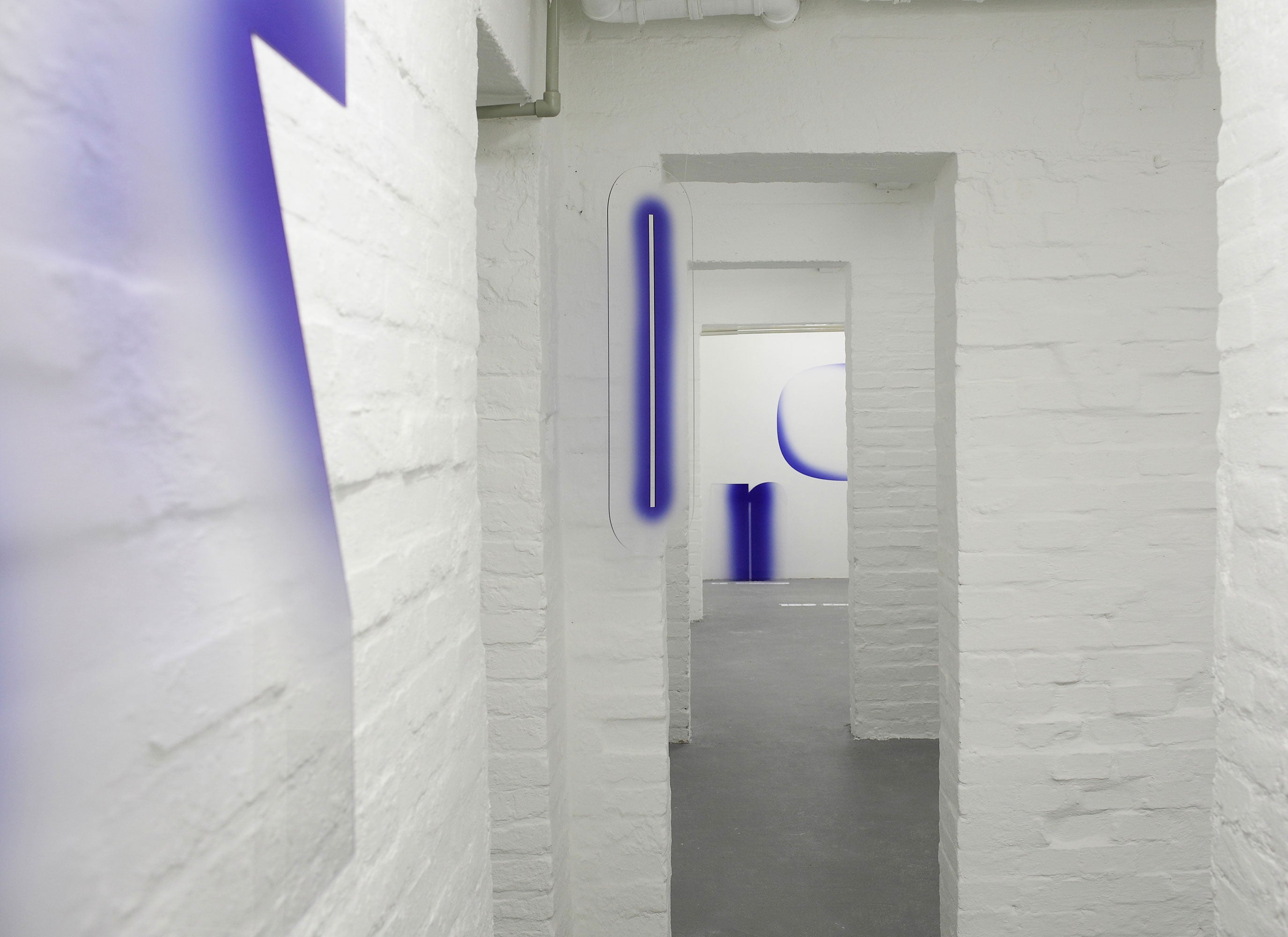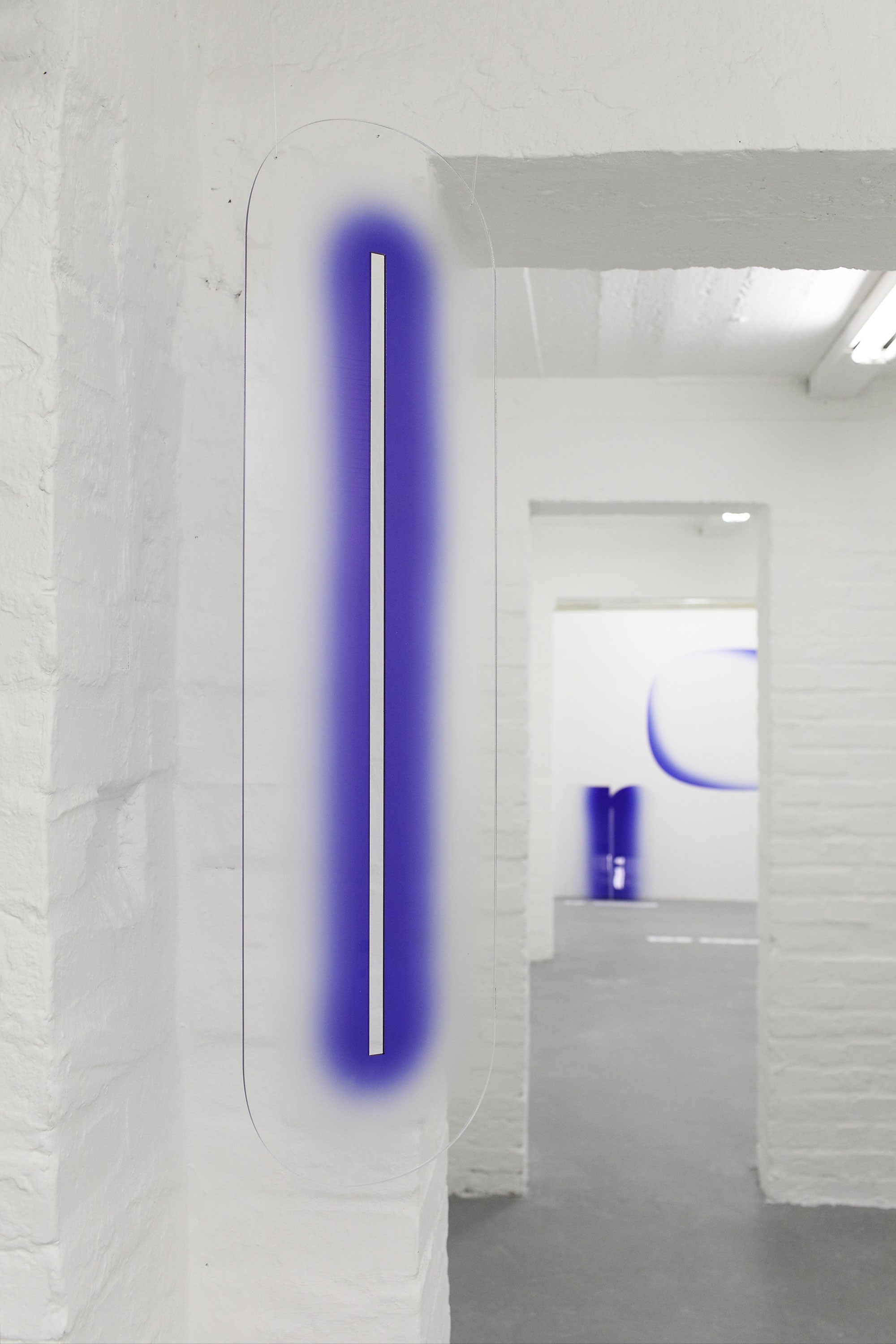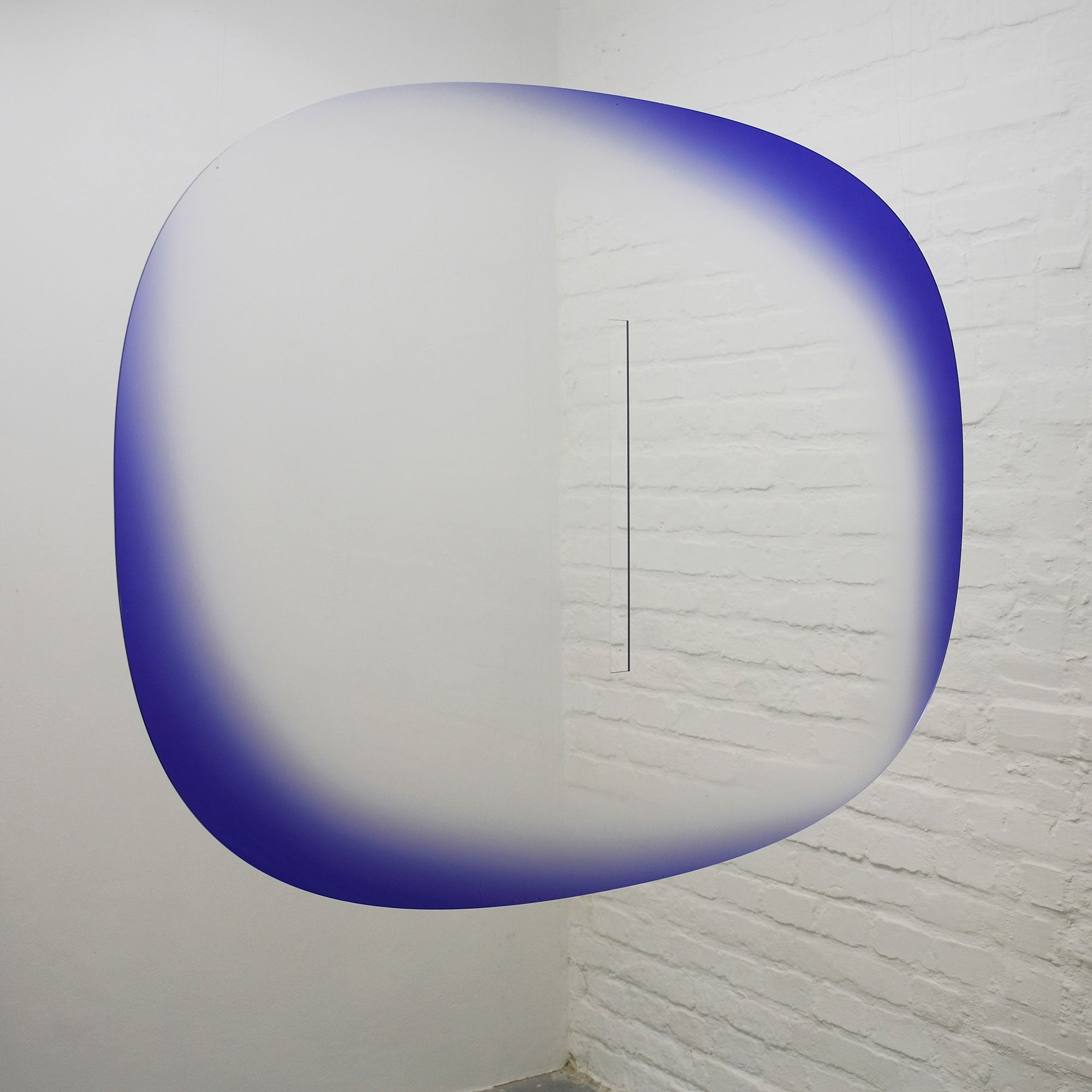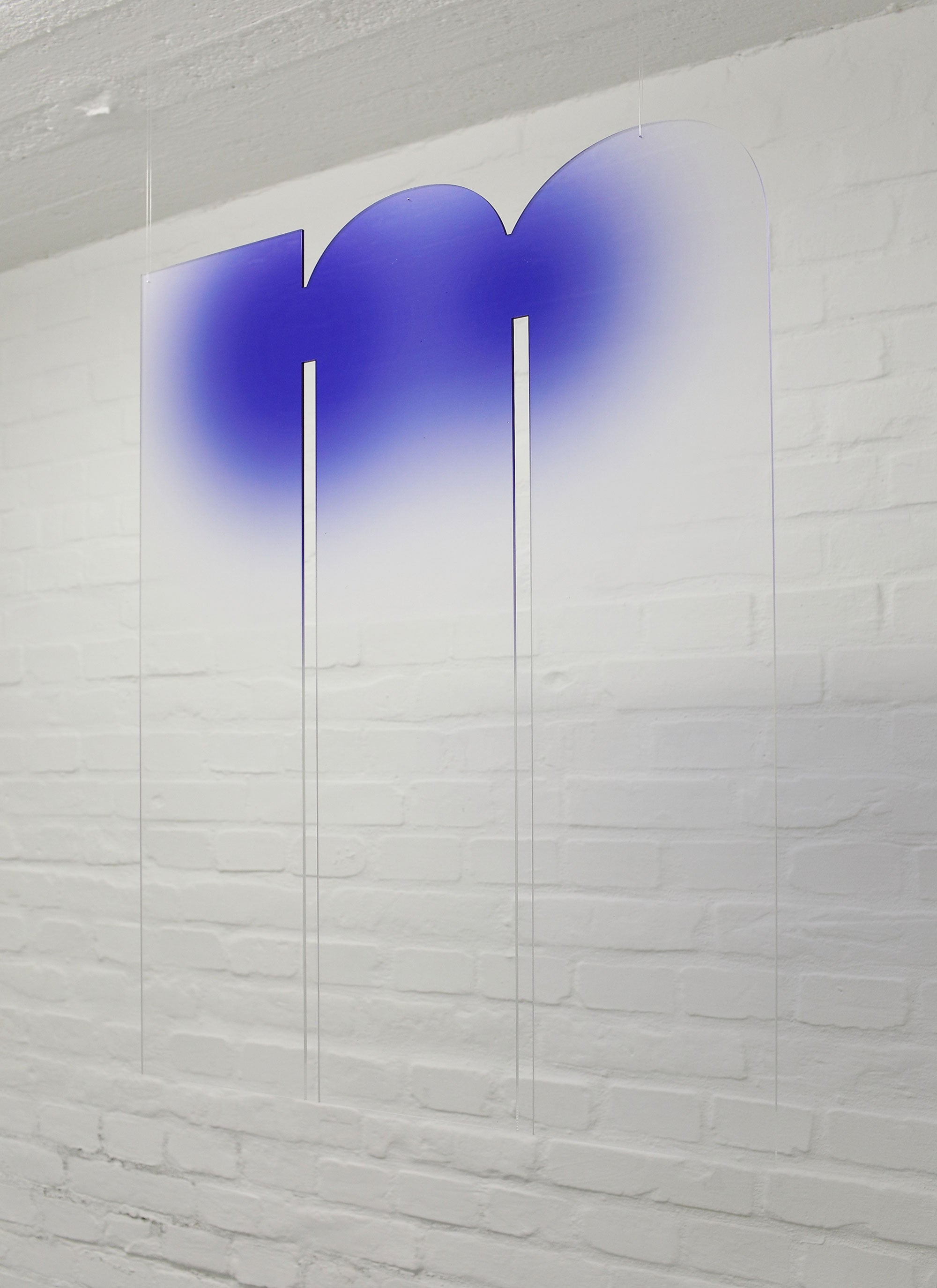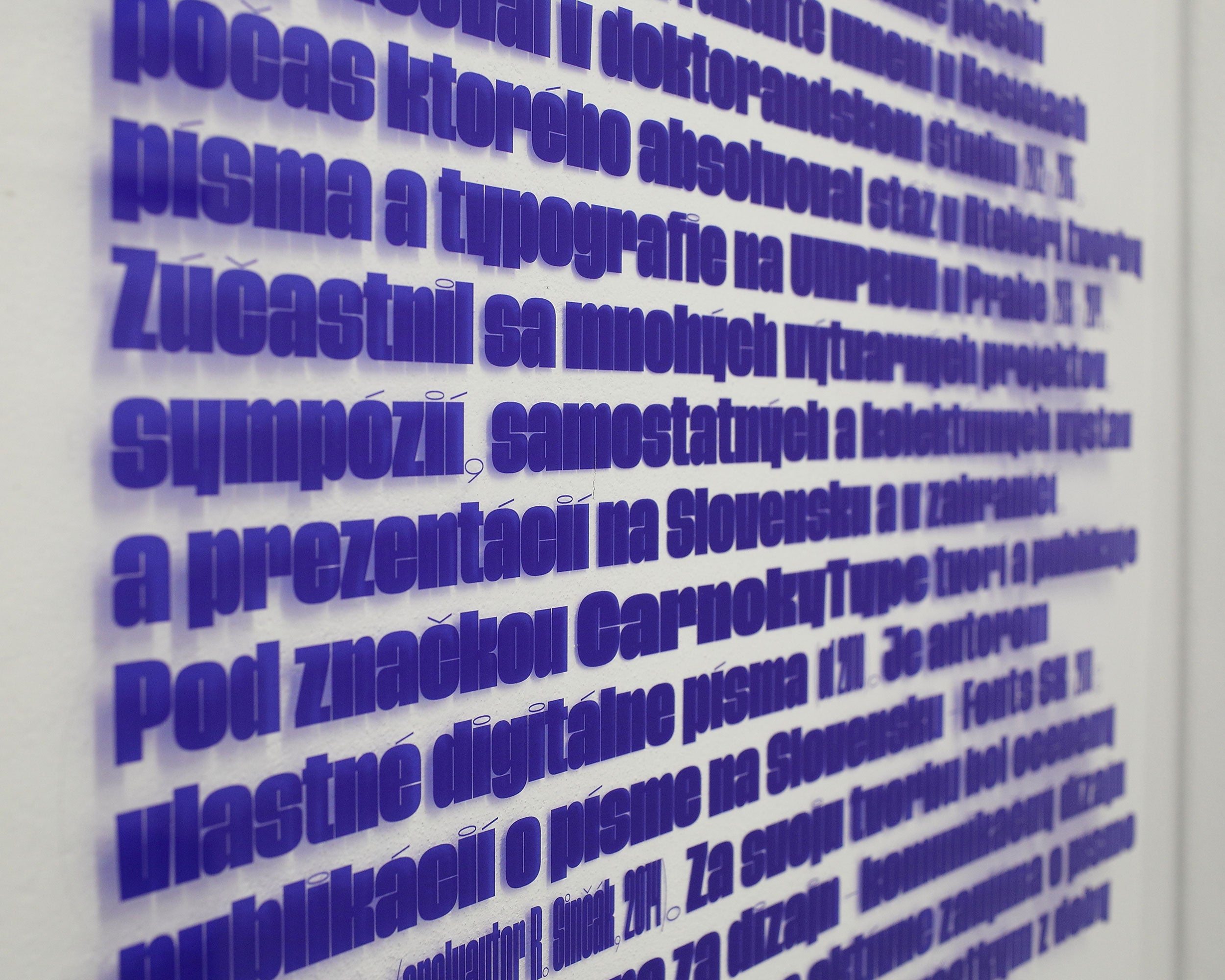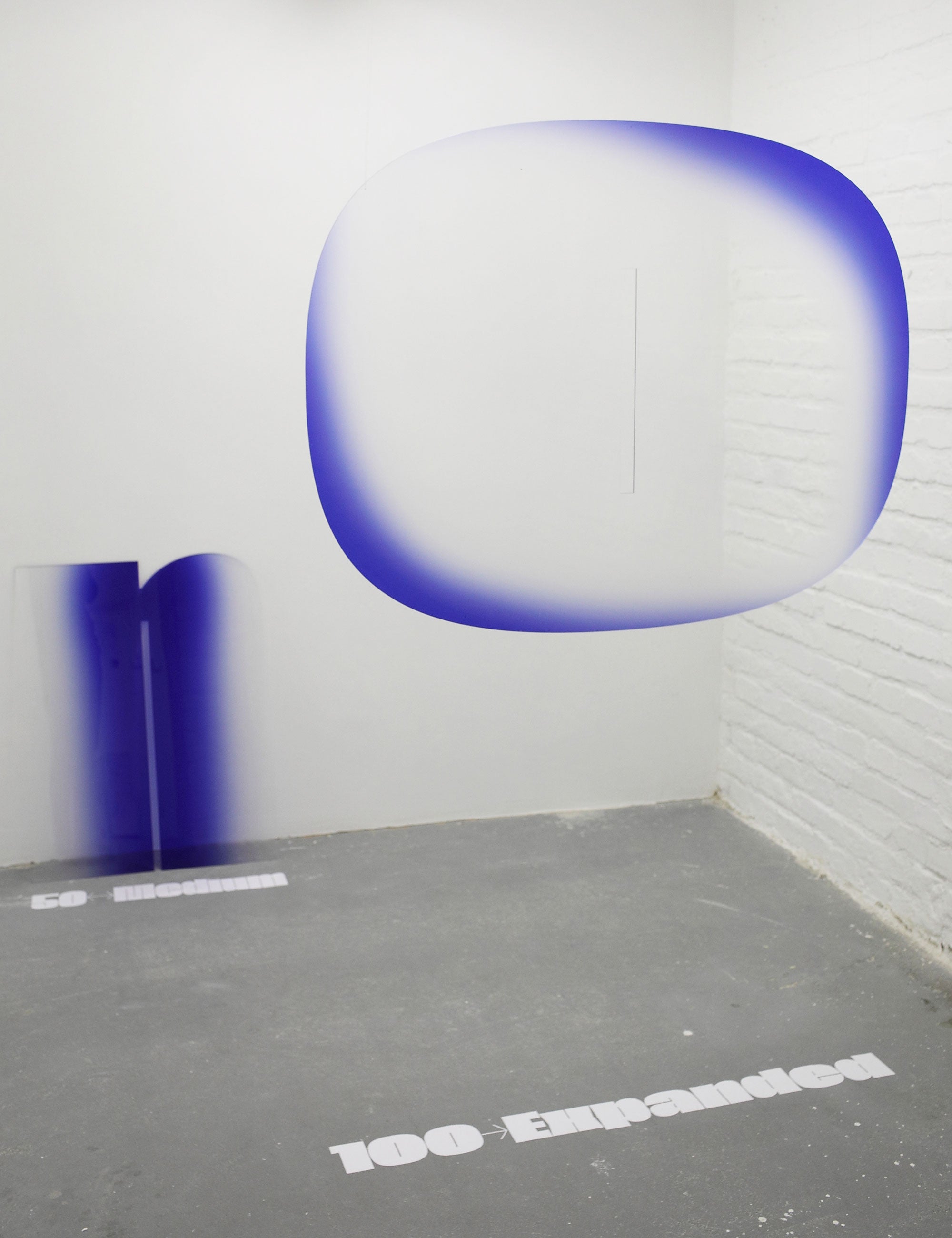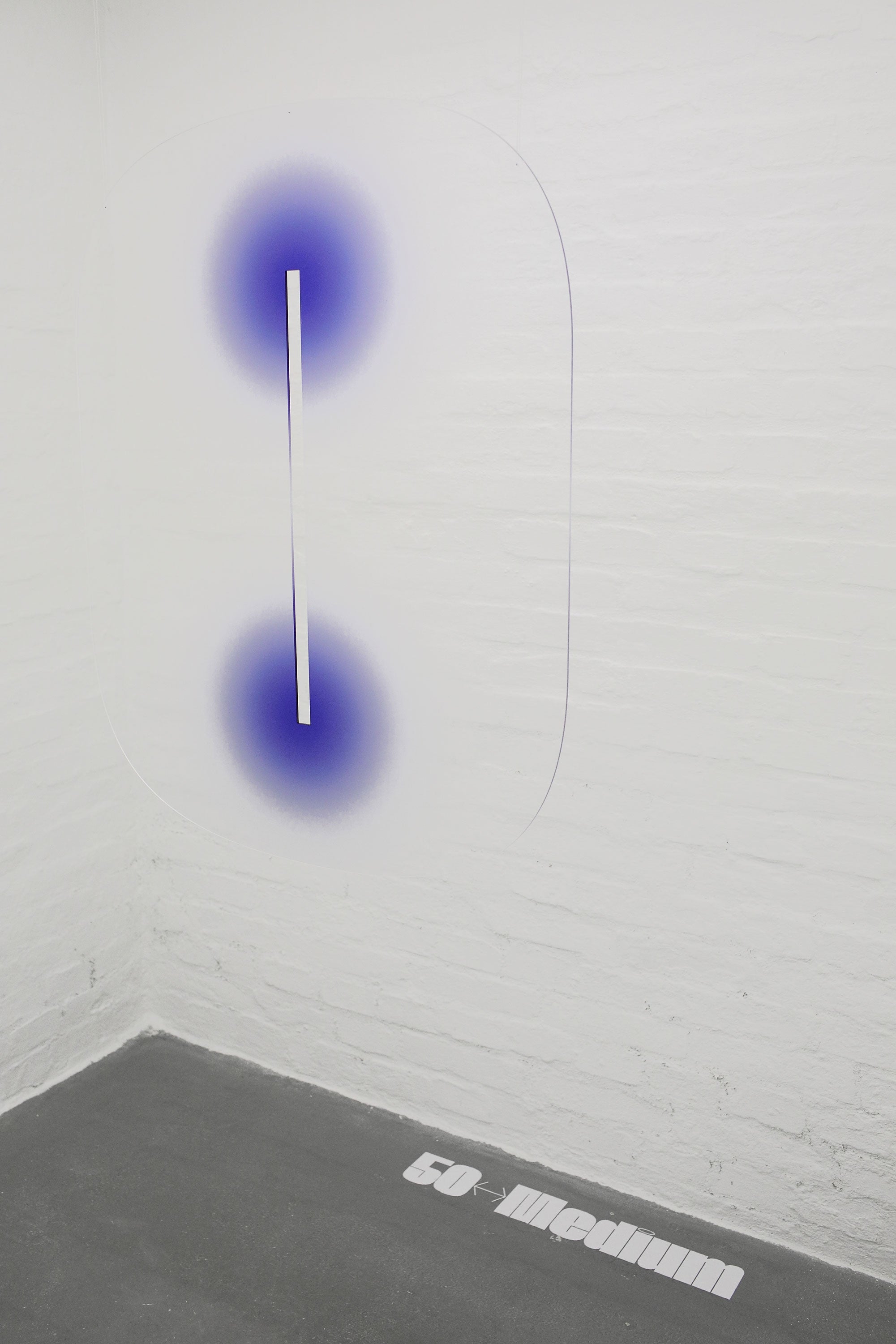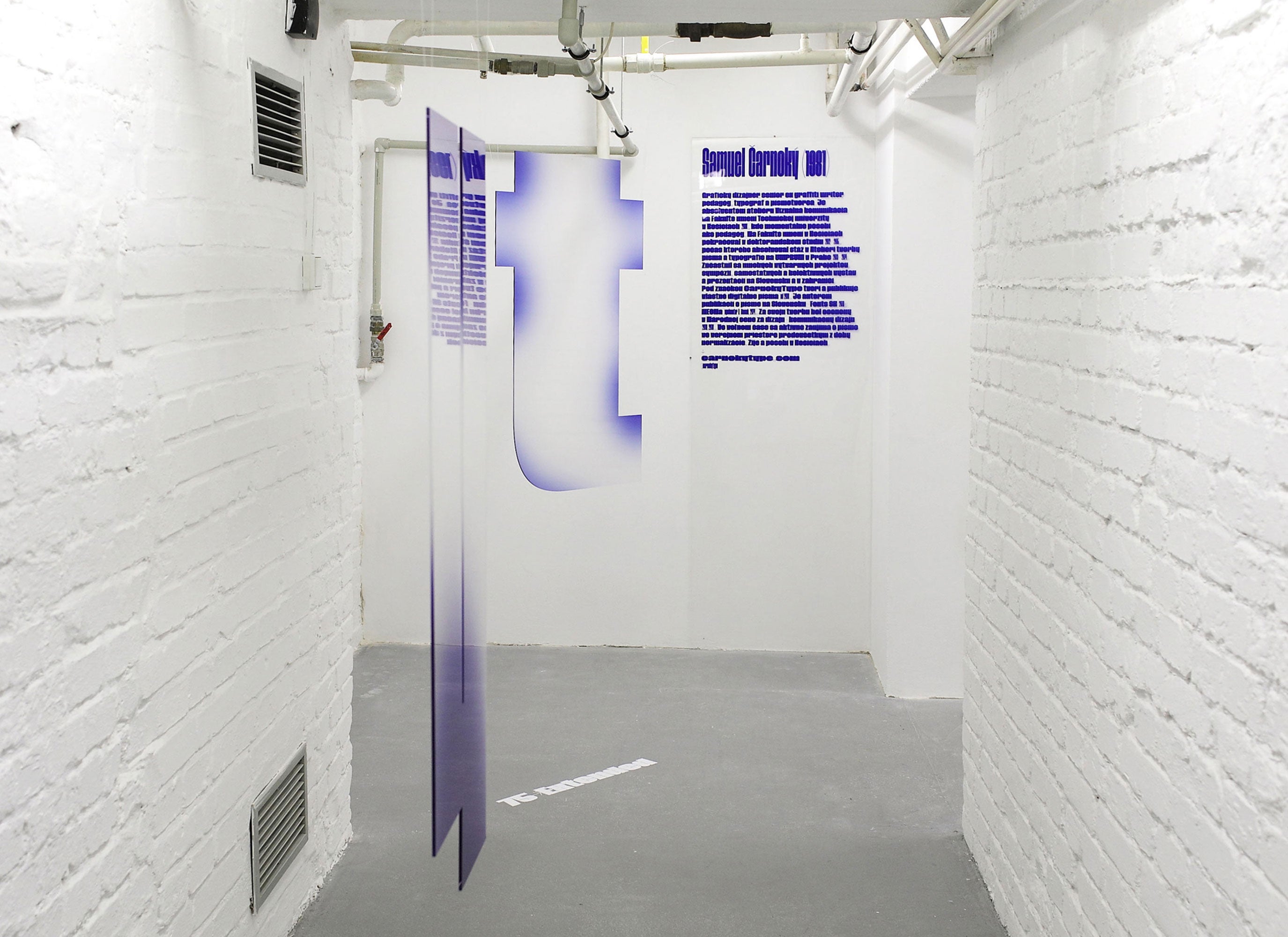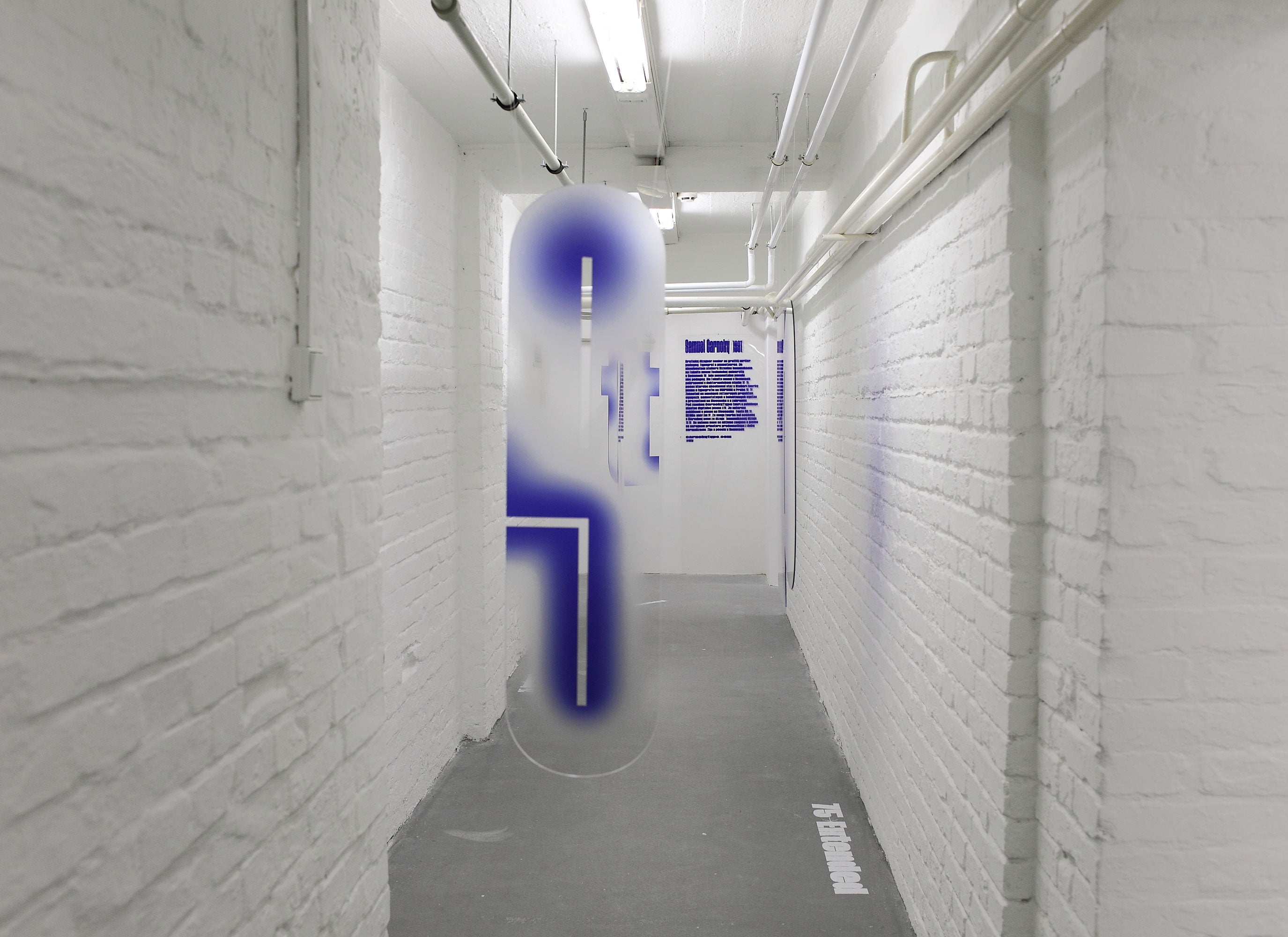
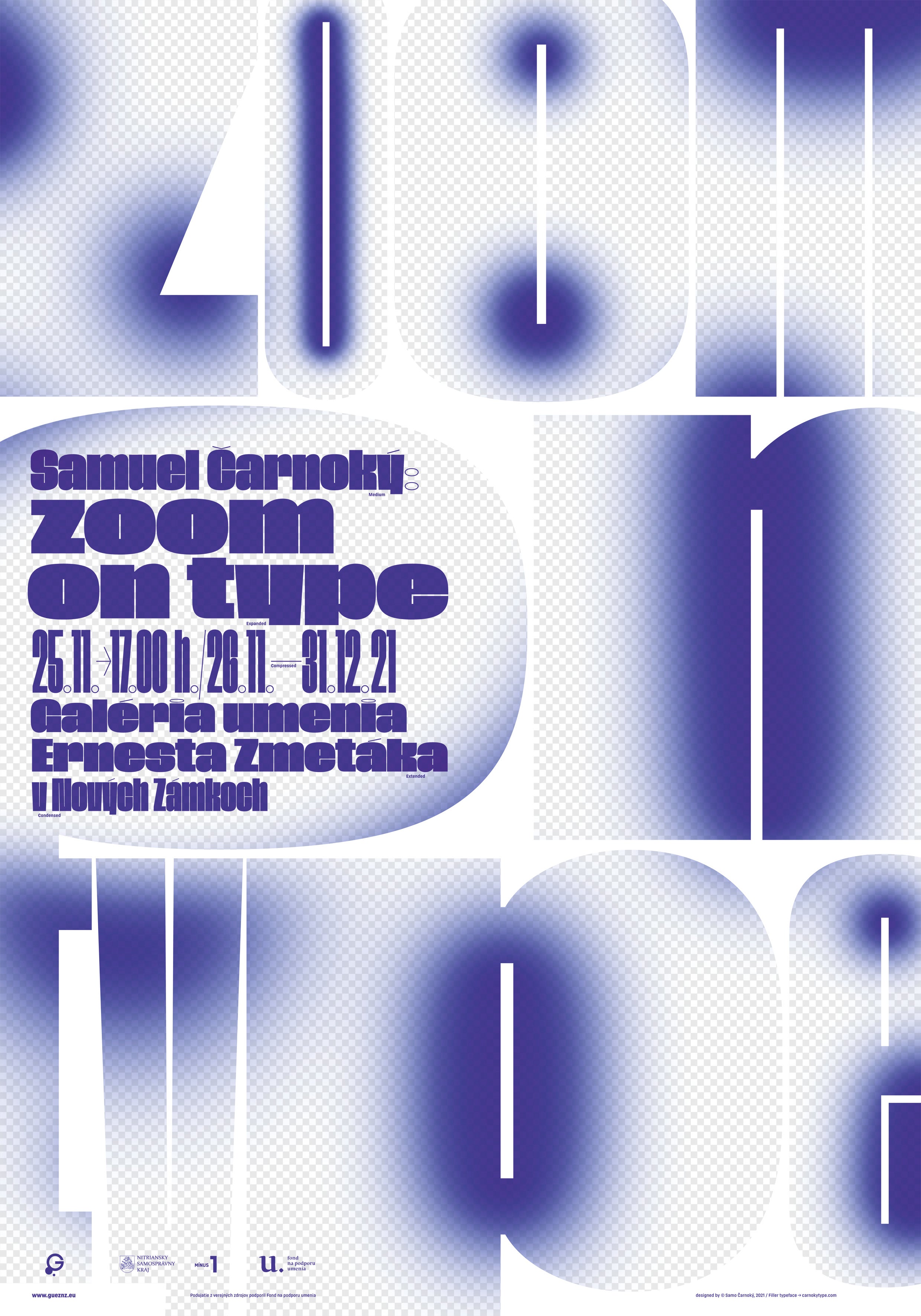
The exhibition project Zoom on Type presents the type design practice of graphic and type designer Samuel Čarnoký. Through a site-specific installation of large-scale letterforms, it draws attention to type — its form, content, and subtle details shaped by both functional and aesthetic considerations. By magnifying the almost invisible nuances of type design, the exhibition reveals aspects of letterforms that readers usually perceive only subconsciously. It highlights type not only as a carrier of information, but also for its aesthetic, visual, and functional qualities. The unusual scale allows viewers to enter the installation, move around the letterforms, and experience type from new perspectives.